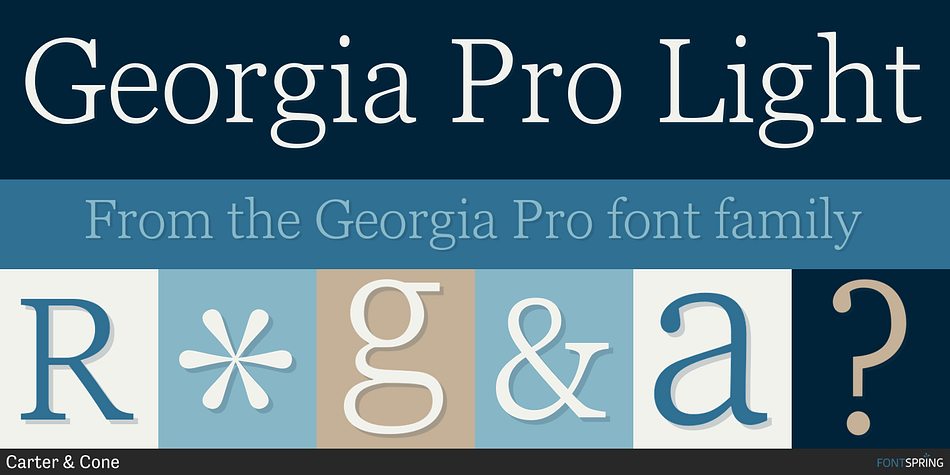
Georgia Pro Light
Designed by Matthew Carter and Steve Matteson, Georgia Pro is a serif font family. This typeface has twenty styles and was published by Carter & Cone.
Originally designed in 1996 by Matthew Carter for Microsoft as a sturdy, dependable serif type for optimal clarity in online reading, Georgia has become a familiar and trusted voice in text settings both on and off the monitor. Steve Matteson added new weights, a Condensed width, multiple figure sets, and small caps (all with extensive hinting by Tom Rickner), extending Georgia Pro’s versatility in print as well as on screen.
Foundry Carter & Cone
Designers Matthew Carter, Steve Matteson